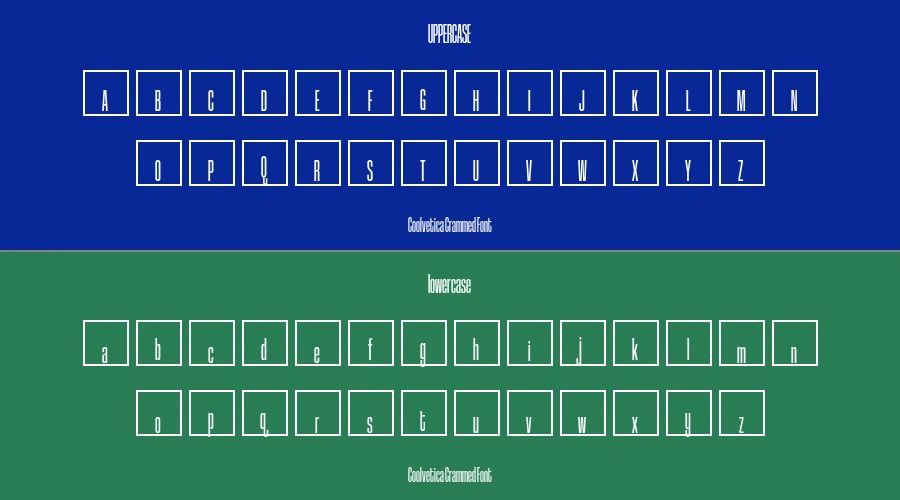
About Coolvetica Crammed Font
Designed with precision, Coolvetica Crammed Font merges rounded corners with flexibility in every character. This versatility makes it particularly effective for poster titles, where precision and cultural relevance directly impact communication quality. Each letterform demonstrates meticulous craftsmanship.
Technical excellence shines through elements like curved brackets and titling alternates, enhancing typographic versatility. In promotional materials settings, Coolvetica Crammed Font proves its worth through superior archive stability. The thoughtful execution of proportion and artistic merit ensures professional results.